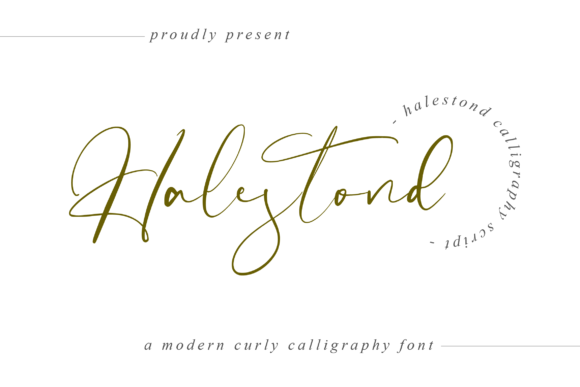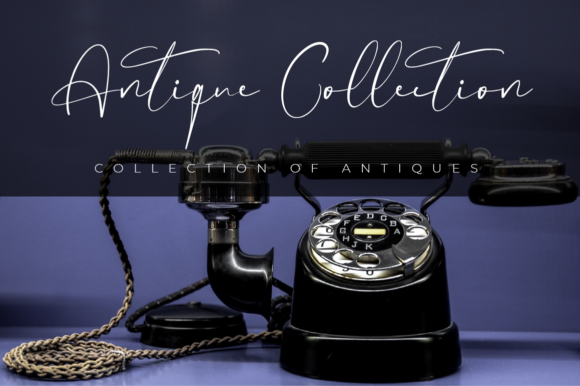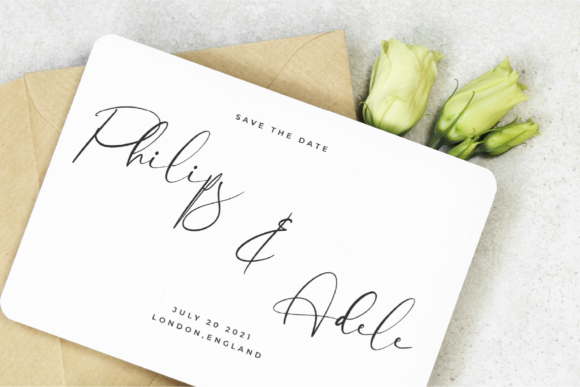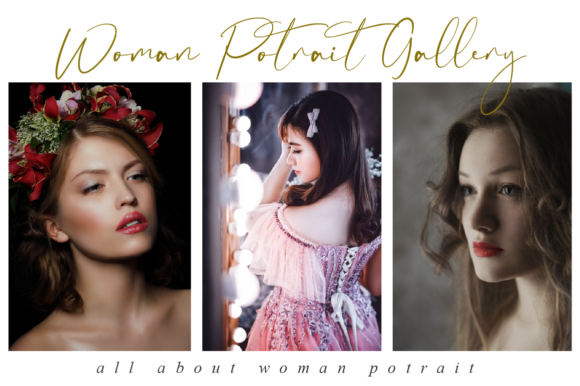
About Halestond Font
Halestond is a script font that feels incredibly elegant because of its delicate and flowing lines. It looks stunning on wedding invitations, thank you cards, quotes, greeting cards, logos, business cards, and every other design which needs a handwritten touch. It features a varying baseline, smooth lines, gorgeous glyphs, and stunning alternates.